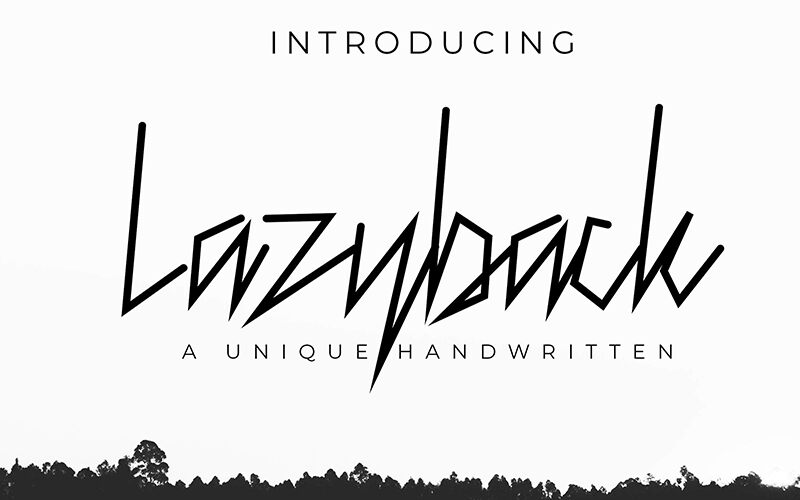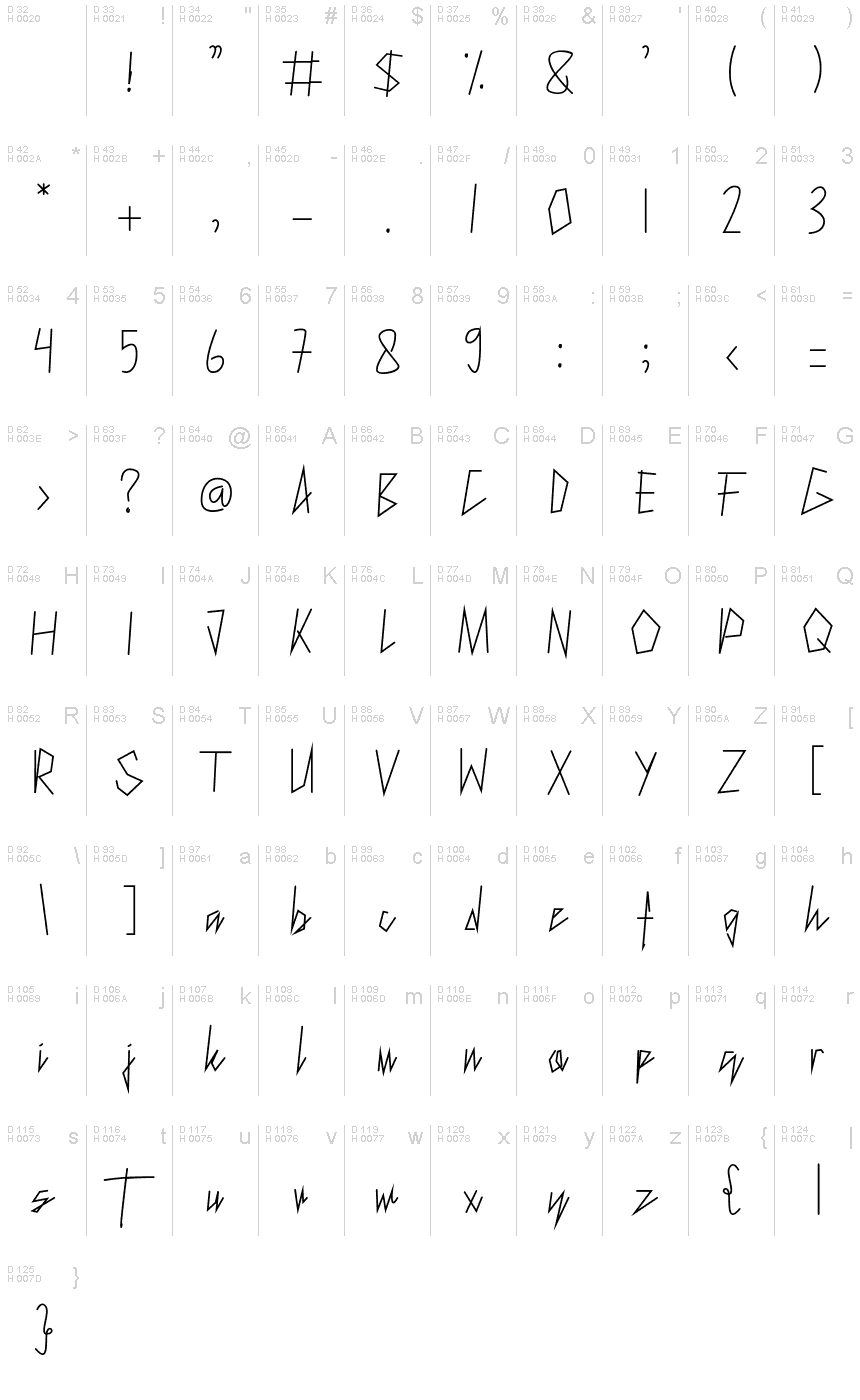
Lazy Back
Lazy Back, a captivating font designed by Share Font, brings an air of whimsy and charm to any project. With its unique script style, this light-weight font exudes elegance and sophistication.
Its semi-condensed width adds a touch of modernity, making it perfect for branding materials such as logos, invitations, and packaging designs. Additionally, Lazy Back lends itself beautifully to website headers, social media graphics, and creative advertisements.
Embrace the distinctive allure of Lazy Back and elevate your projects with its delightful aesthetic.